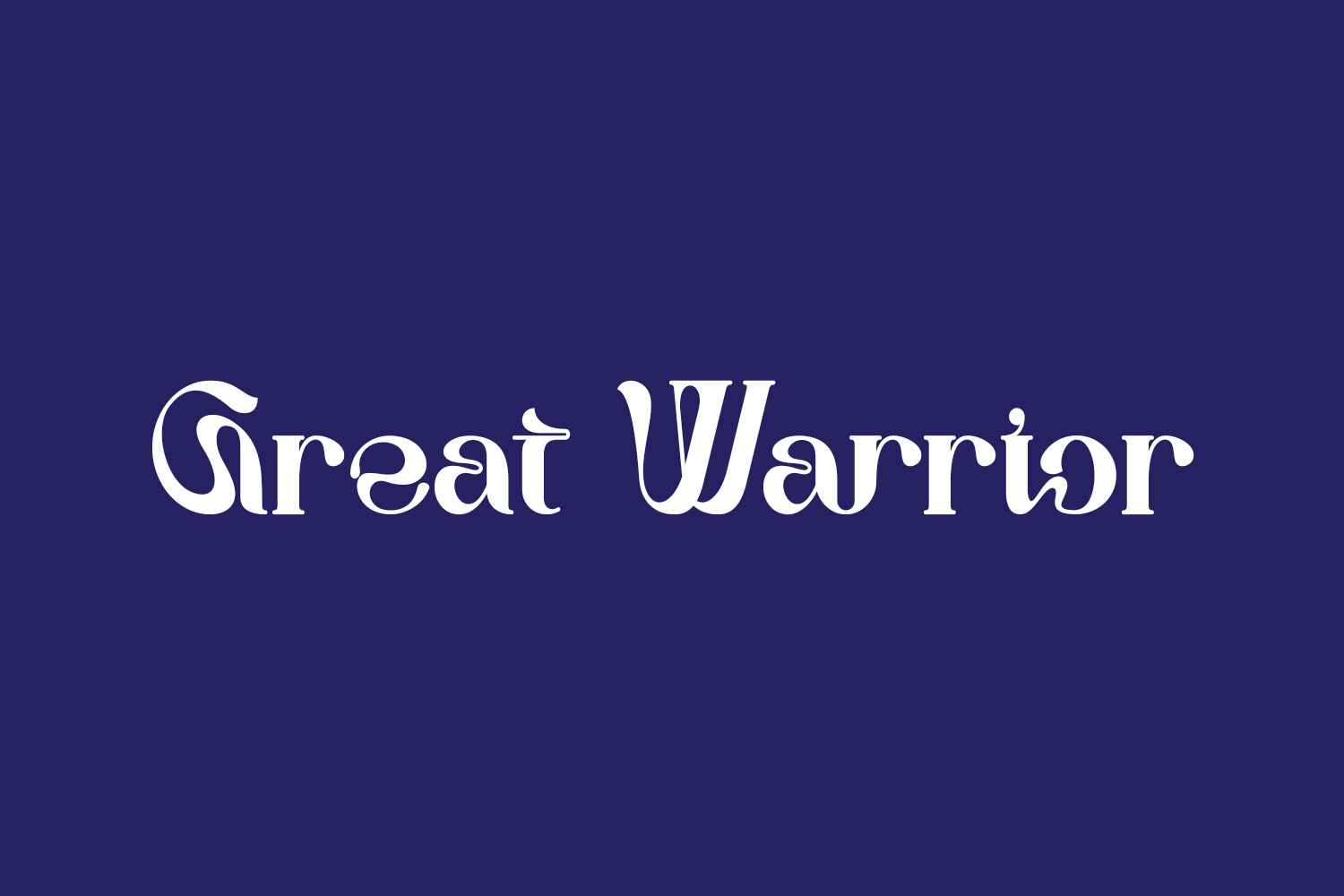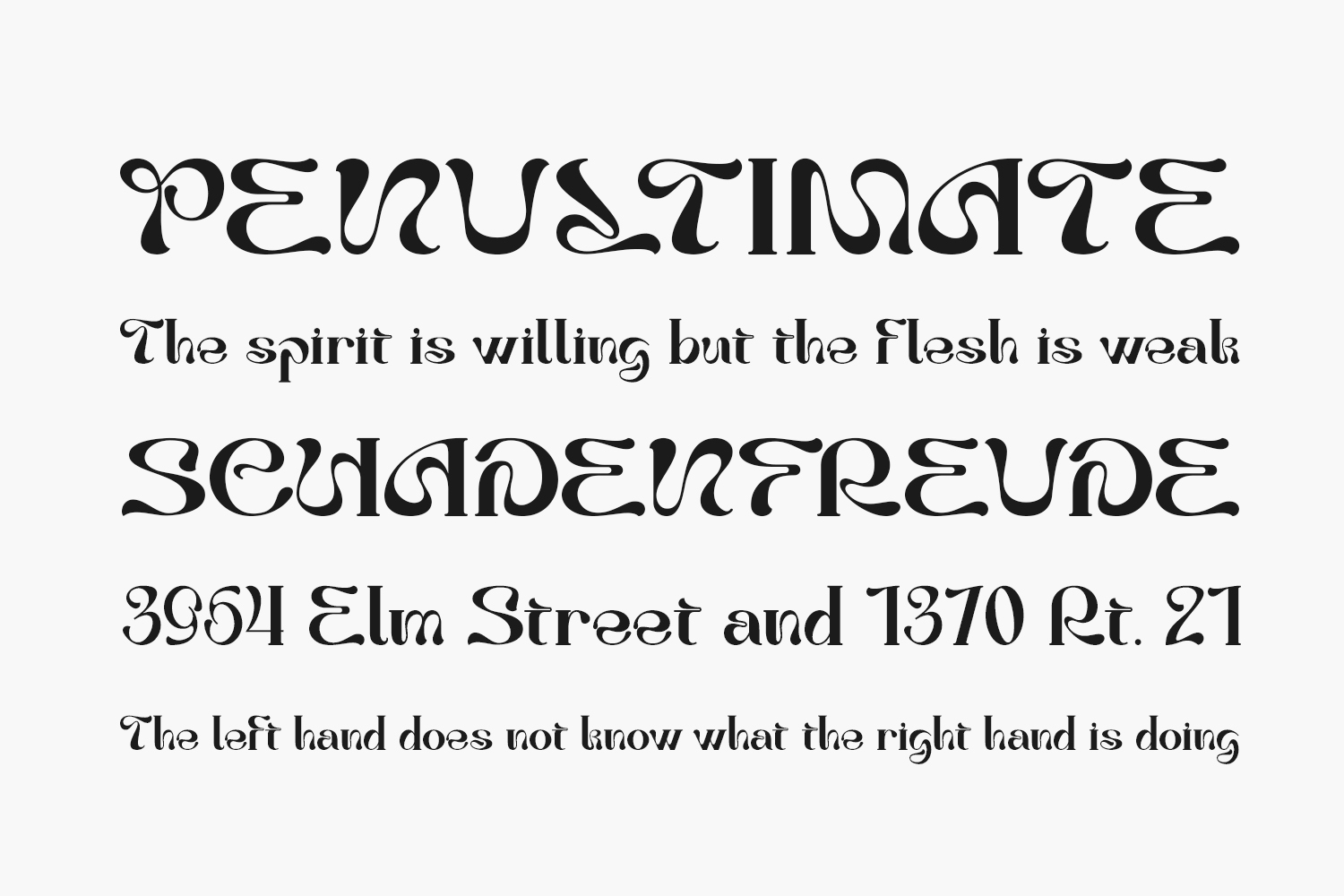
Great Warrior Free Font embodies a contemporary serif display font characterized by its distinctive and sophisticated style. Boasting a cool and nostalgic aesthetic, this font is versatile, making it an ideal choice for diverse projects including branding, crafting, stickers, sublimation, wedding invitations, advertising, vintage mood boards, logotypes, packaging, titles, editorial design, and beyond. Great Warrior Free Font is free for personal use only. Please purchase the full version for commercial use.